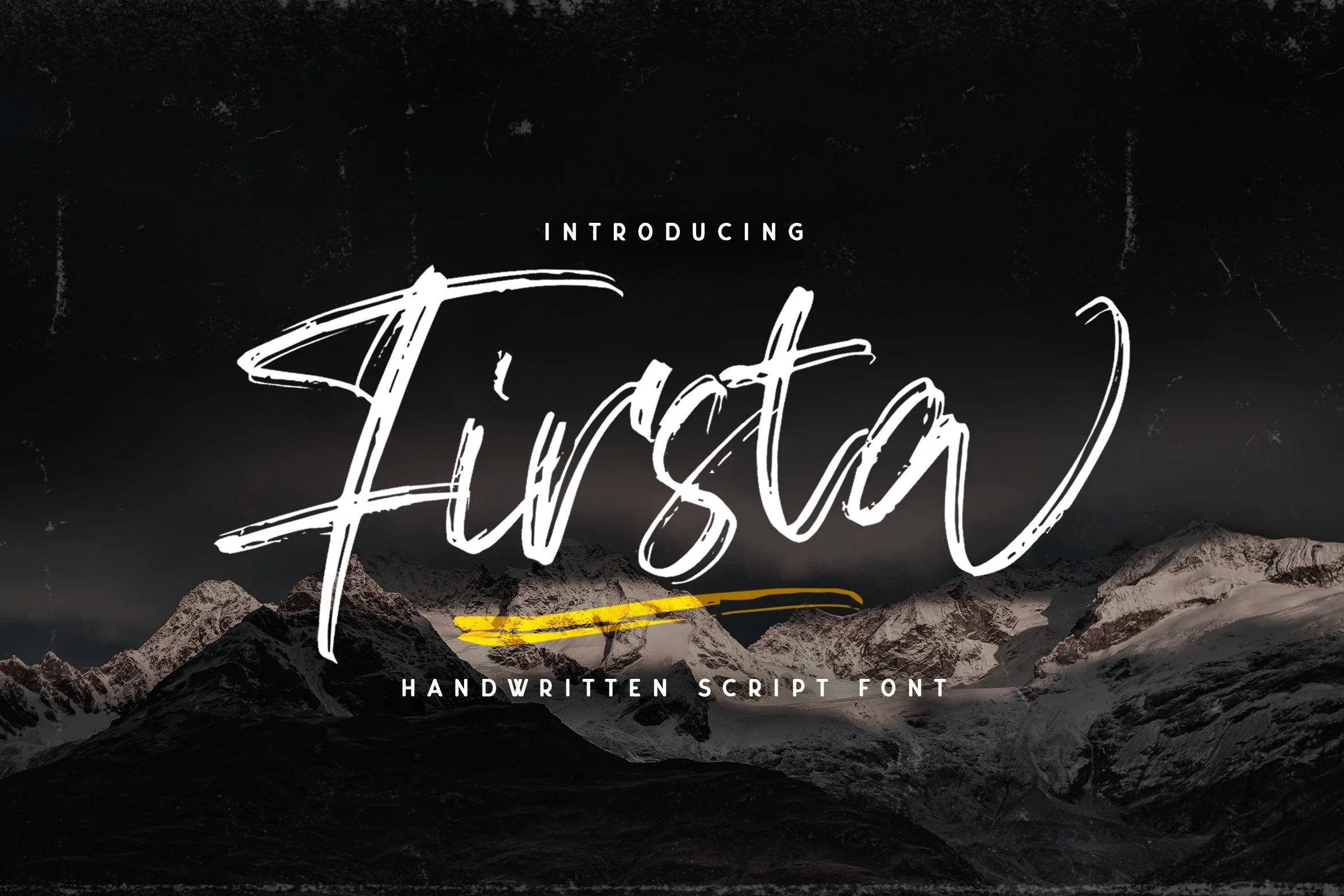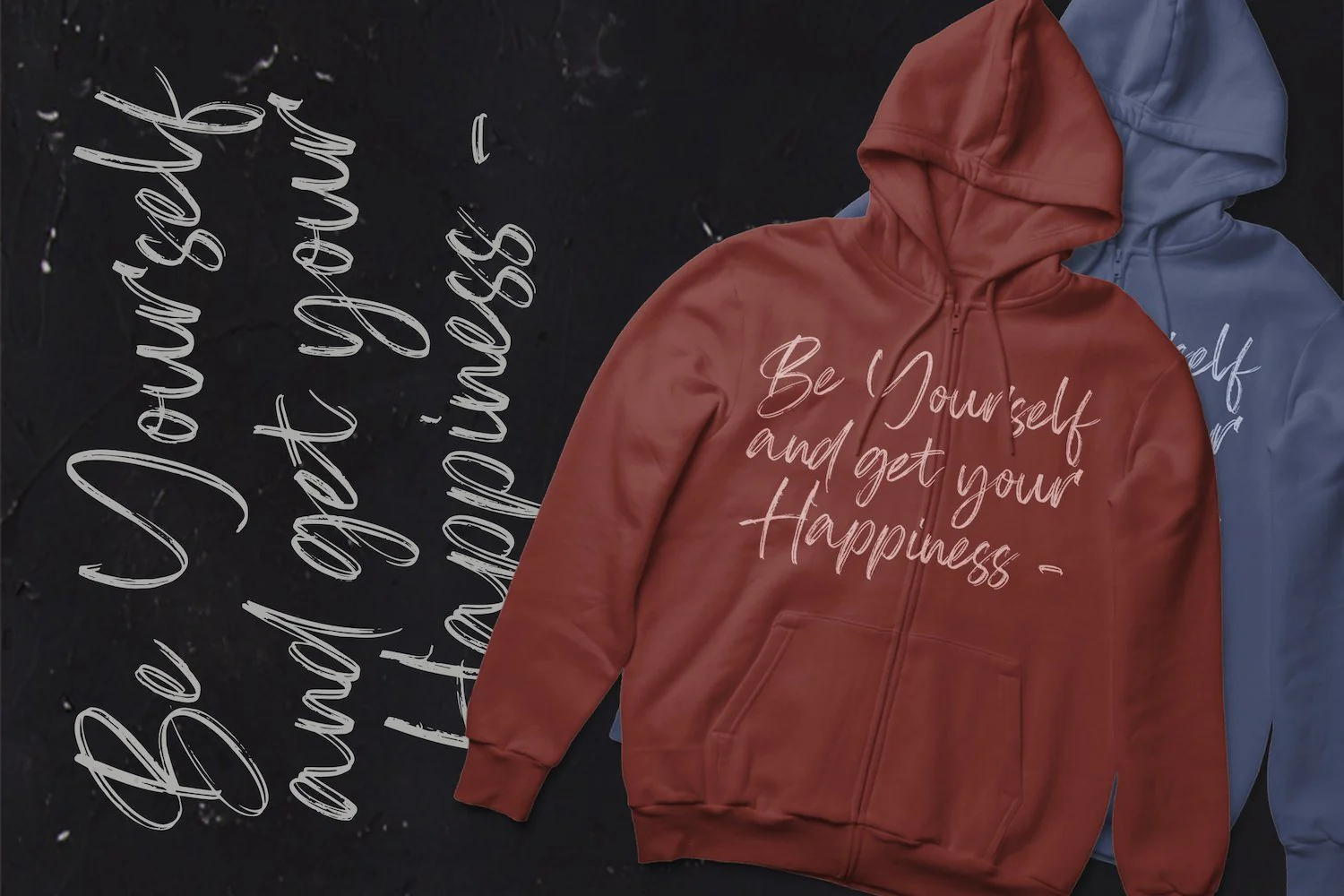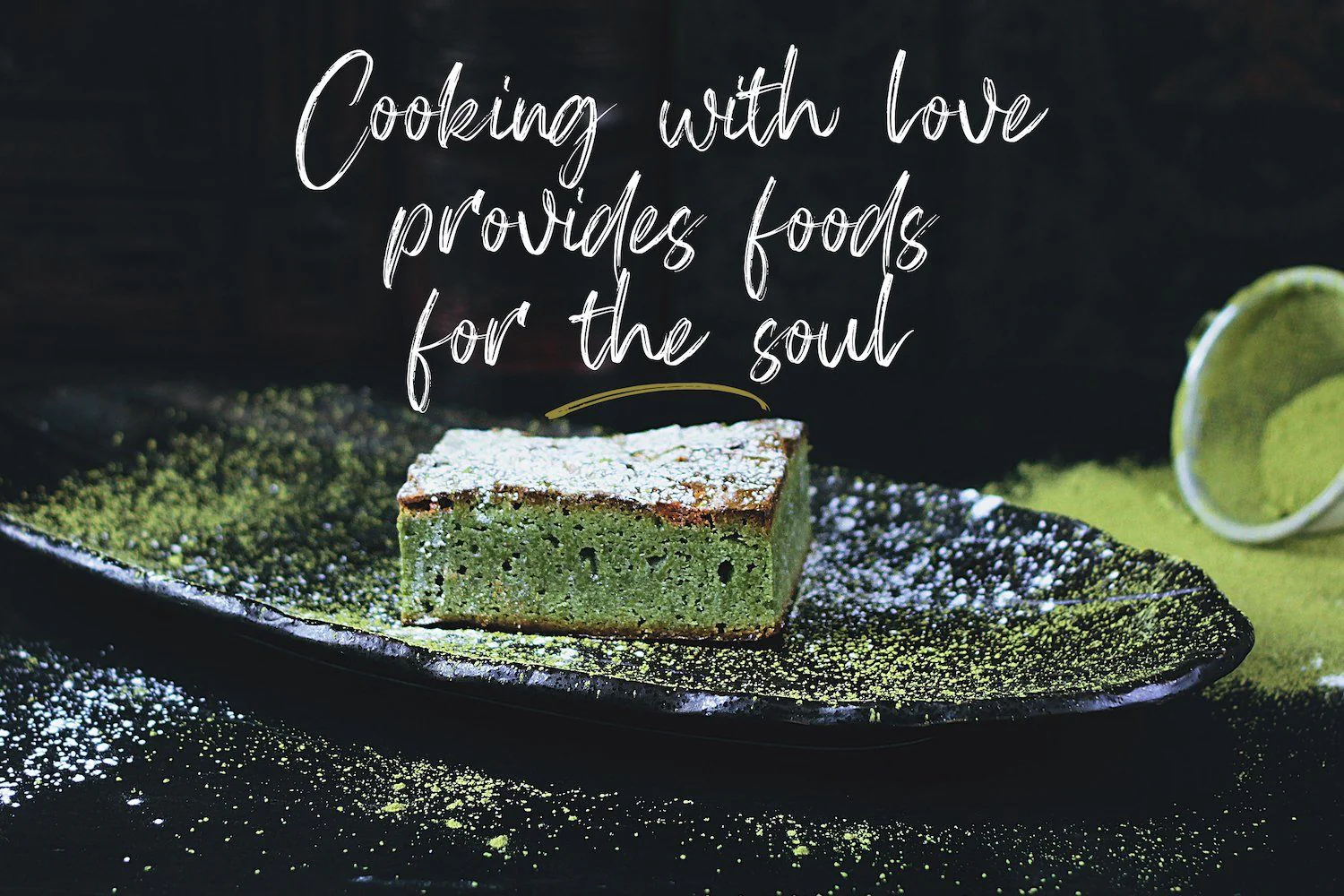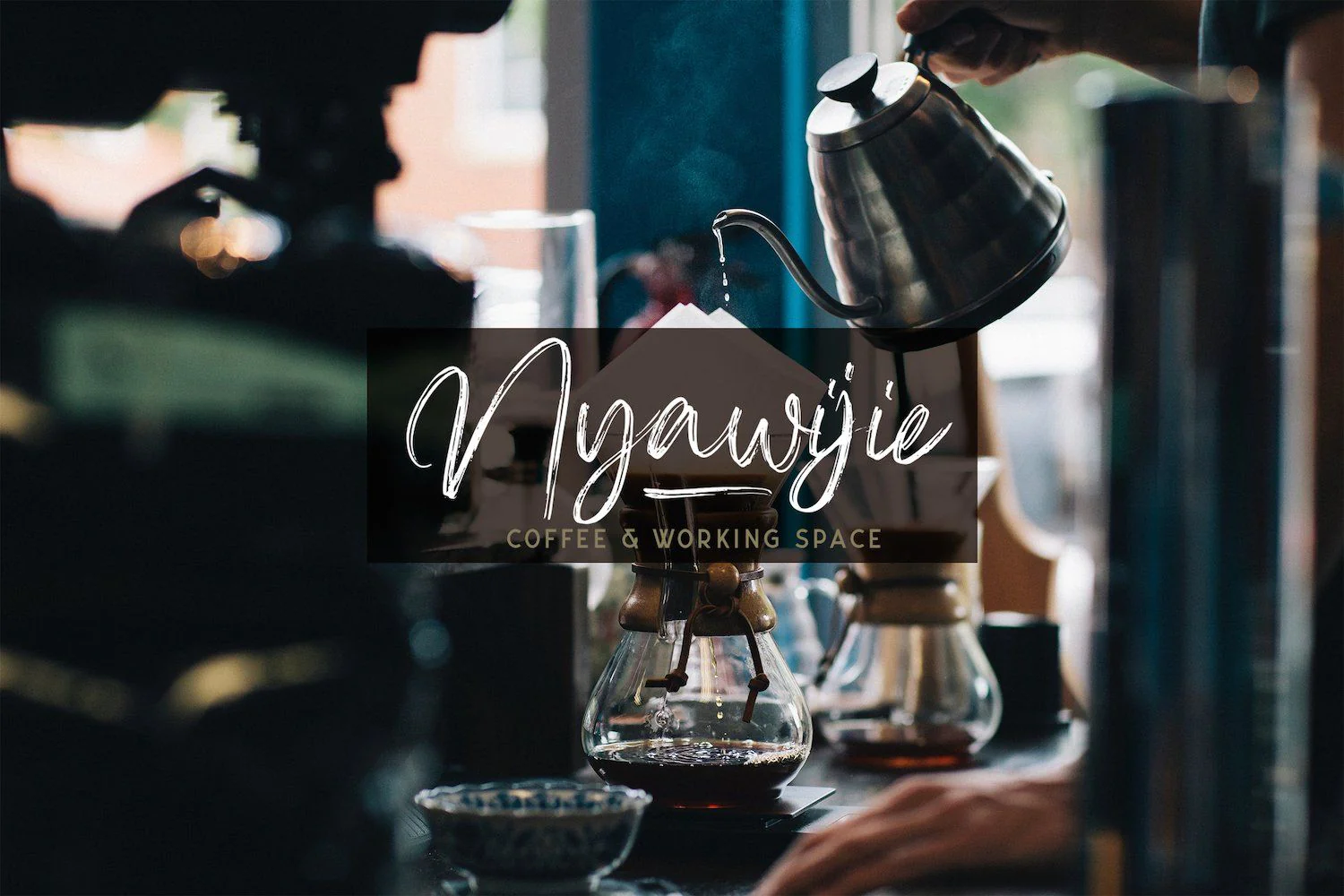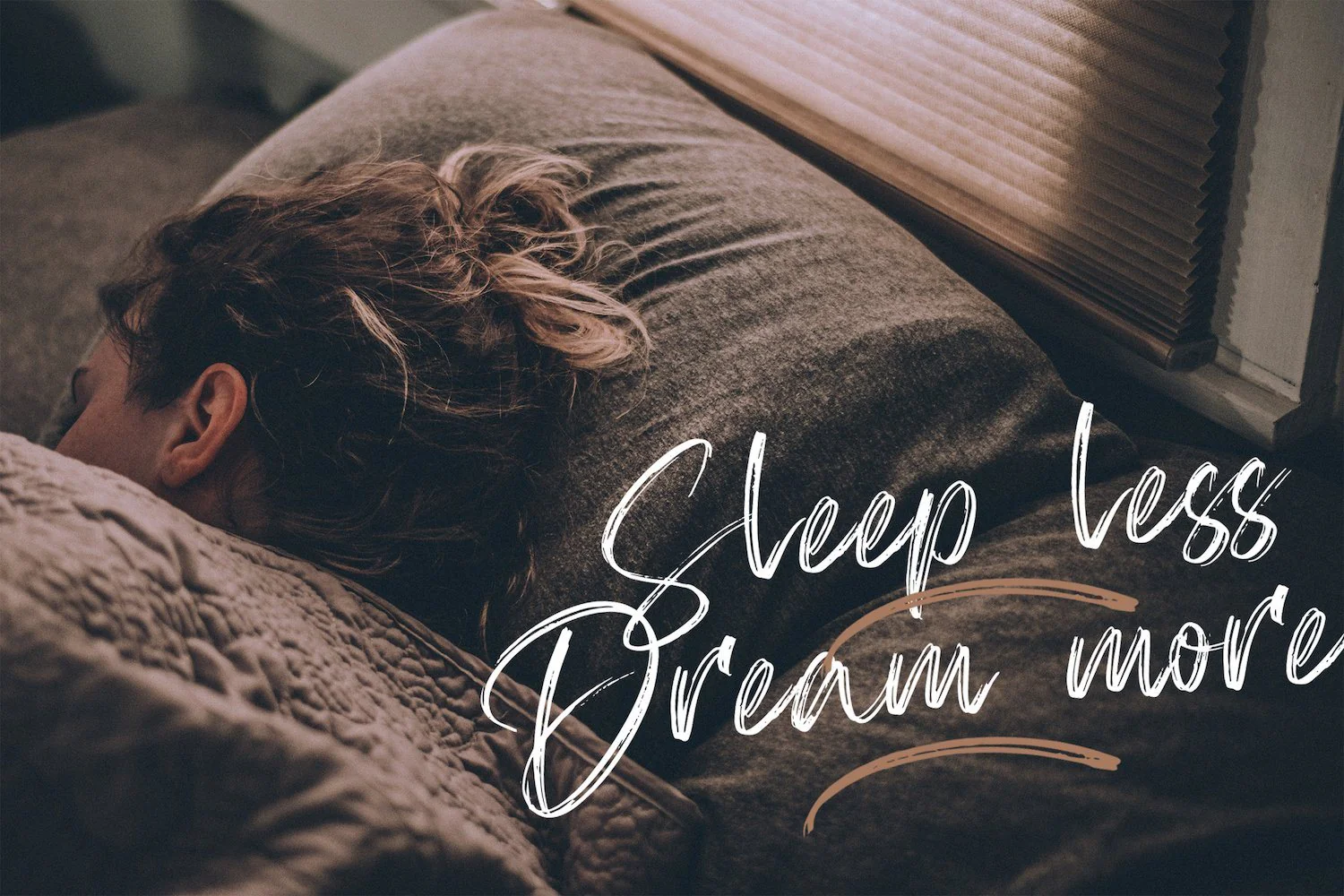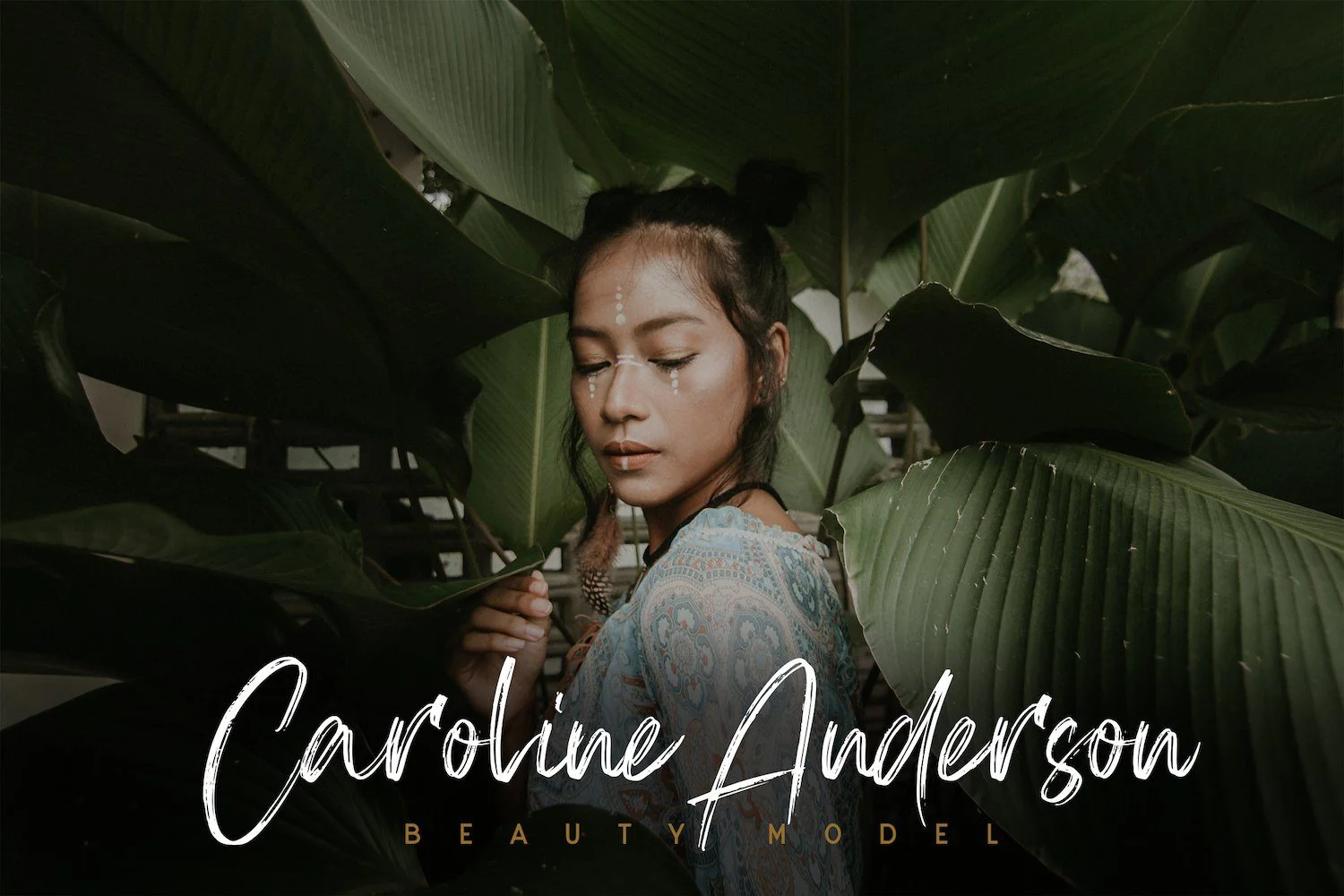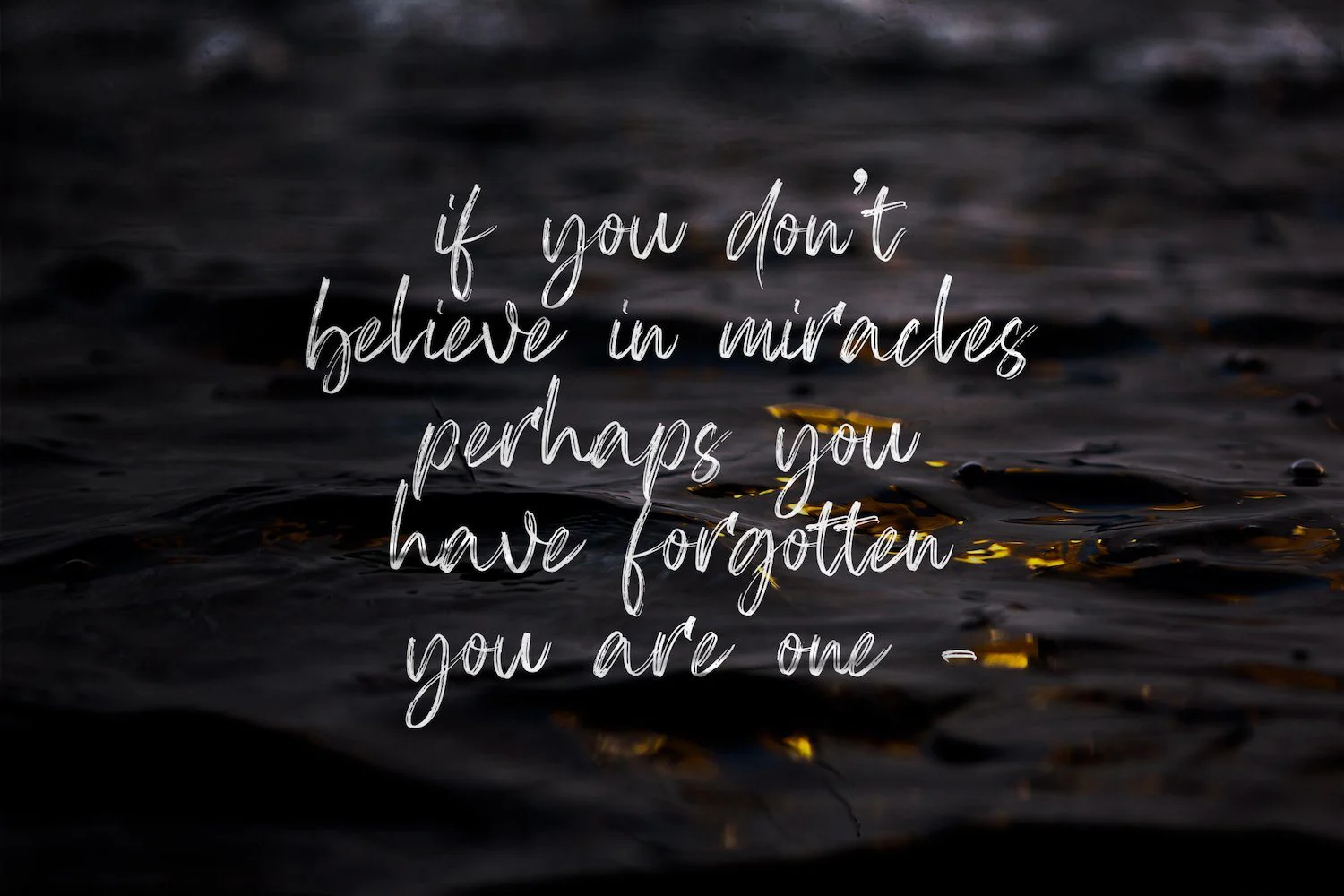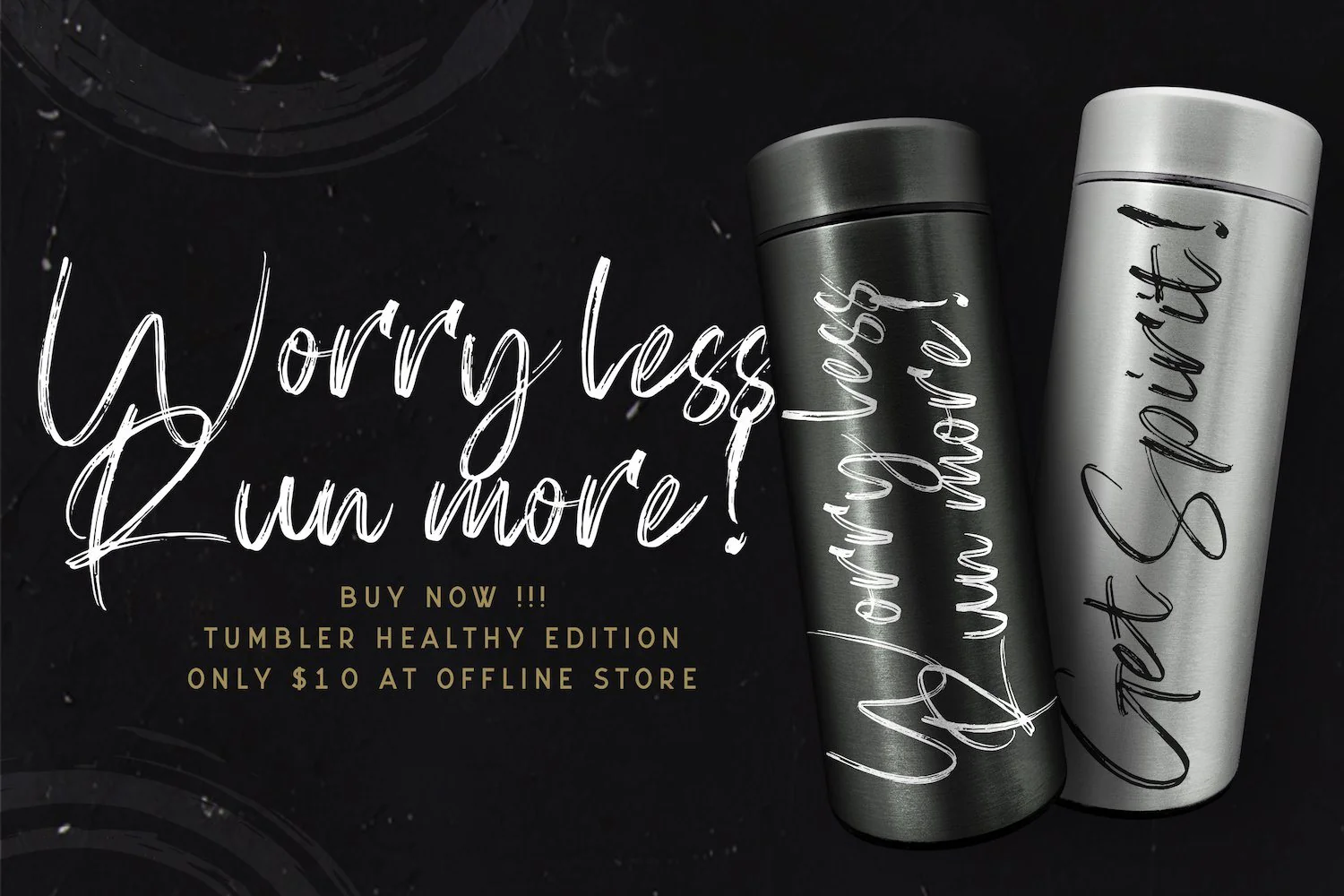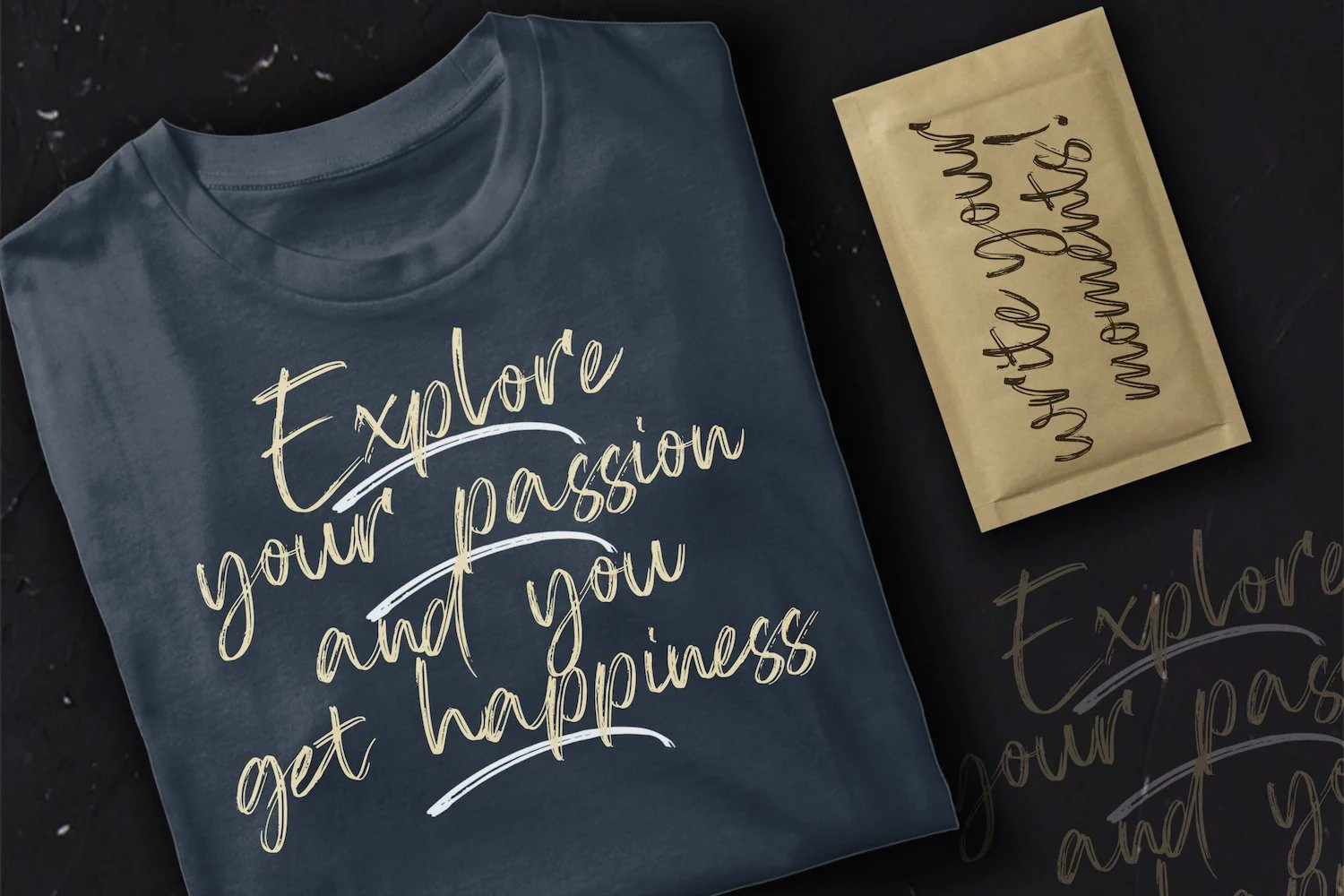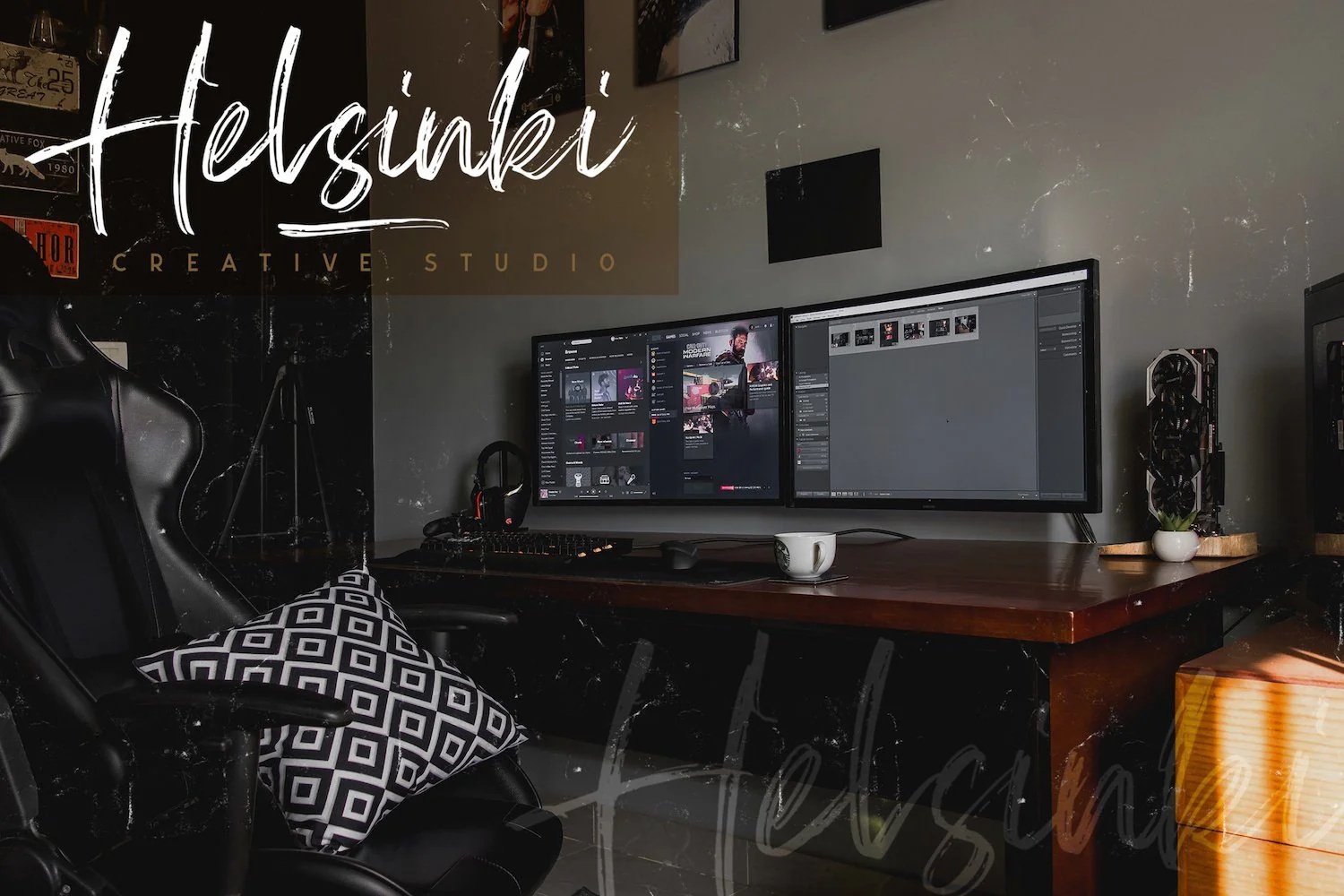
Firsta - Handwritten Font
Introducing Firsta - Handwritten Font
Firsta is a Script Font with Handwritten Style. The Firsta font made with digital brush pen strokes that making this font look authentic. This font is perfect for fashion brand, wedding invitation, business card, logo brand, signature, and then calligraphy.
Introducing Firsta - Handwritten Font
Firsta is a Script Font with Handwritten Style. The Firsta font made with digital brush pen strokes that making this font look authentic. This font is perfect for fashion brand, wedding invitation, business card, logo brand, signature, and then calligraphy.